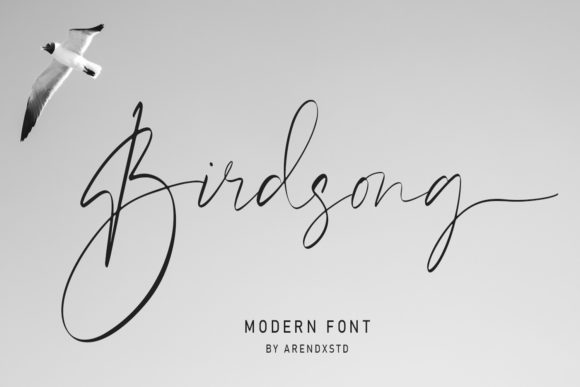
The Birdsong Font: A Friendly and Versatile Script for Creatives
Have you ever been in the middle of a design project, and suddenly, you’re stuck on finding the perfect font? I recall a recent experience where I was working on a DIY craft project, and I needed a font that would bring a personal touch to my design. The client wanted something friendly, yet elegant. That’s when I stumbled upon the Birdsong font, and it completely transformed my project!
A Personal Review of Birdsong Font
I’m excited to share my honest review of the Birdsong font, and I hope it helps you decide if it’s the right fit for your creative projects.
What I Love About Birdsong Font
• ✨ Gorgeous swashes and ligatures that add a touch of elegance to any design
• ✅ Friendly and approachable feel that’s perfect for DIY projects, social media graphics, or calligraphy scripts
• 🎨 A wealth of special features, including alternate glyphs and ligatures, to help you create unique designs
While I absolutely love the Birdsong font, there are a few minor quirks to be aware of:
• ⚠️ Some users might find the font a bit too casual for formal projects
• 🤔 The font’s versatility can be overwhelming, making it challenging to choose the perfect combination of swashes and ligatures
The Story Behind Birdsong Font
The Birdsong font was designed with the intention of creating a friendly, approachable script that would bring a personal touch to any design. The designer wanted to create a font that would evoke feelings of warmth and happiness, making it perfect for DIY projects, social media graphics, or calligraphy scripts.
Q: What is the Birdsong font best used for?
A: The Birdsong font is versatile and can be used for a variety of projects, including DIY crafts, social media graphics, calligraphy scripts, and more.
Q: Is the Birdsong font suitable for formal projects?
A: While the Birdsong font is friendly and approachable, it may not be the best fit for formal projects. However, it can still be used for formal projects if paired with a more formal design.